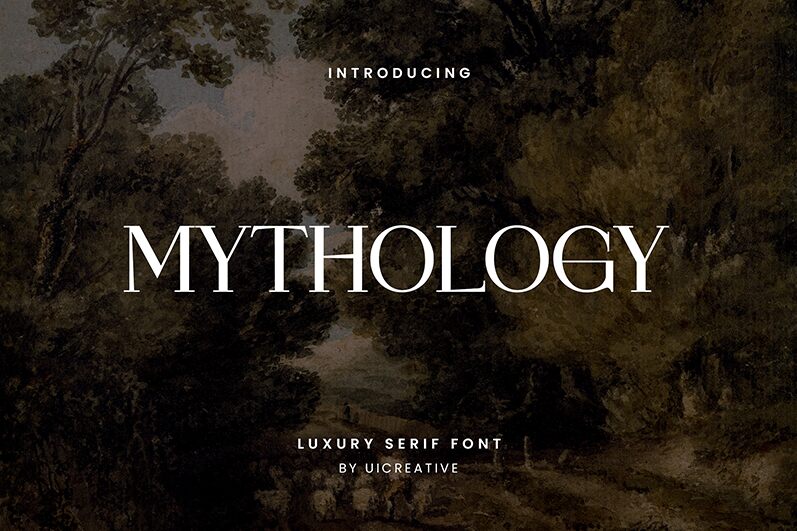
Mythology
Mythology, a captivating serif font crafted by UI Creative, exudes an air of timeless elegance and sophistication. Featuring graceful, flowing strokes and subtle serifs, this typeface evokes a sense of captivating storytelling, transporting viewers to realms of mythical wonder and enchantment. The careful balance of classic and modern elements makes Mythology an exceptional choice for a wide range of design applications, from book covers and editorial layouts to branding and signage.
Mythology's versatility shines through its ability to seamlessly integrate into diverse design contexts. Its refined aesthetics lend themselves beautifully to high-end publications, invitations, and luxury packaging, where its timeless charm can elevate the overall visual experience. Conversely, the font's robust character and legibility make it a practical selection for websites, marketing materials, and other digital applications requiring a touch of timeless elegance.